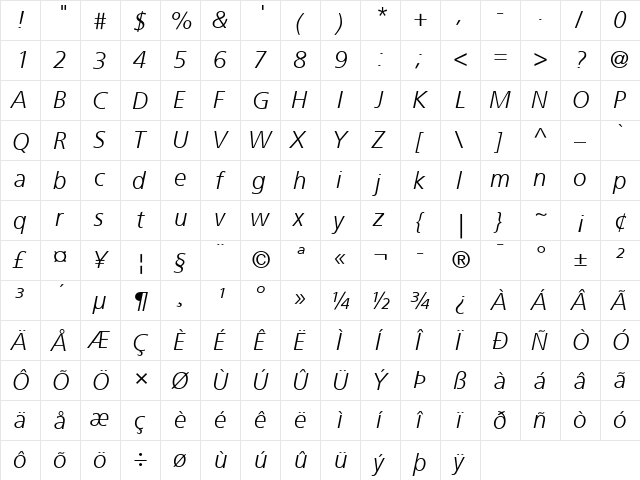
Frutiger 45 Light Italic Font Preview
Design Context for Frutiger 45 Light Typeface
Frutiger 45 Light is a composed and adaptable typeface that performs quietly and consistently across a wide range of design contexts. Its italic angle brings a sense of urgency and motion to the letterforms. The delicate stroke weight brings airiness and refinement to layouts.
Pro Tip: Try Frutiger 45 Light for annotation and caption copy alongside an upright companion — the contrast in angle creates a dynamic but ordered typographic system.